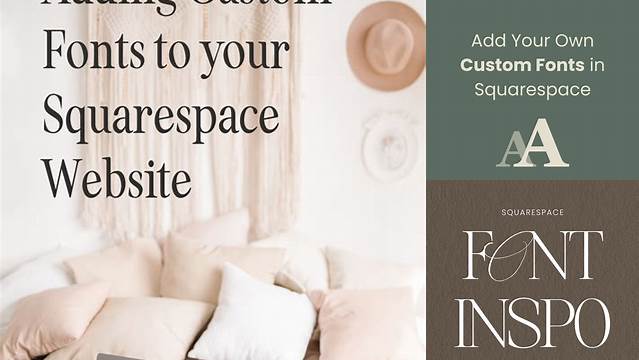
Custom Fonts On Squarespace: A Comprehensive Guide
Unleash Your Brand's Personality: A Guide to Using Custom Fonts on Squarespace
Hey everyone! Ever looked at a website and thought, "Wow, that font really speaks to their brand"? Well, you're in the right place if you want to achieve the same effect on your Squarespace site! Today, we're diving deep into using custom fonts on Squarespace, making your website not just look good, but feel like a true extension of your brand's identity. Forget the generic web fonts; we're talking about injecting your unique style with custom typography. Think of it as the secret sauce that sets you apart from the crowd! This guide will walk you through everything you need to know, from the basics to some pro tips that’ll make your site a design masterpiece. Let's get started, shall we?
Why Bother with Custom Fonts? The Awesome Benefits
Okay, so you might be thinking, "Why all the fuss about custom fonts? Aren't the default fonts on Squarespace good enough?" And the answer, my friends, is a resounding no, at least if you're serious about building a strong brand. Using the default fonts is like wearing the same outfit as everyone else – you blend in! But with custom fonts, you get to stand out, to shout your unique brand personality from the digital rooftops. Let me break down the amazing benefits of this game-changing feature.
First and foremost, custom fonts allow for brand consistency. Imagine your logo, your social media graphics, and your website all using the same font. It creates a cohesive look and feel that instantly communicates your brand's values and personality. Consistency builds trust and recognition, making your brand instantly recognizable. It's like having a signature style that everyone knows and loves. Think of iconic brands – their fonts are just as recognizable as their logos. This consistency also ensures that the visual language of your brand remains solid, regardless of where your audience encounters it.
Next up, custom fonts elevate your website's design aesthetics. Let's face it, the default fonts can feel a little… well, bland. But with the perfect custom font, you can create a more visually appealing and engaging website that captures your audience's attention. A unique font can transform the overall look and feel of your website, creating a more memorable and enjoyable user experience. A well-chosen font will add personality and convey your brand's unique story, elevating your website's design from basic to brilliant.
Furthermore, custom fonts can enhance your brand's personality. Fonts have personalities, believe it or not. A playful font might suit a children's brand, while a sleek, modern font might be perfect for a tech company. The font you choose tells a story about your brand. Does it feel serious, fun, innovative, or traditional? Your font choice communicates these subtle messages. It's about expressing your brand's soul through typography. It’s about finding that font that just feels right and perfectly aligns with your target audience.
Finally, custom fonts can improve readability and user experience. Some fonts are simply easier on the eyes than others. Choosing a font that's both stylish and legible ensures that your content is easily readable. A great font choice enhances the user experience, making your website more accessible and enjoyable to navigate. Ultimately, it can lead to increased engagement and a higher chance of converting visitors into customers. Clear typography is vital for maintaining the interest of the user and ensuring they read the content you want them to engage with.
So, are you convinced yet? If not, get ready to be! Custom fonts are a powerful tool that can transform your Squarespace site into a true reflection of your brand.
1. Choose Your Fonts:
Before anything else, you need to pick out your fonts! There are tons of places to find beautiful, unique fonts, both free and paid. Google Fonts is a fantastic resource, offering a massive library of free fonts that are easy to implement. Sites like Adobe Fonts (formerly Typekit) offer a wider range of premium fonts, but they usually come with a subscription fee. Consider your brand's personality and the overall feel you want to create when selecting your fonts. Make sure the fonts you choose are web-safe, meaning they're designed to display correctly on websites. Make sure they are licensed for web use! Always double-check the font's license to ensure you're allowed to use it on your website.
2. Obtain the Font Files:
Once you've selected your fonts, you'll need to download the font files. You'll typically need the .woff
and .woff2
file formats. These formats are optimized for web use. If you download your fonts from a site like Google Fonts, they often provide these files directly. If not, you can use an online font converter to convert other font file types (like .ttf
) into .woff
and .woff2
formats. Having both formats ensures your fonts will display correctly on all modern browsers, creating a seamless experience for all users. These are key files to have for the next steps in the process.
3. Upload Your Fonts to Squarespace:
This is where things get a little technical, but don't worry, I'll break it down. Unfortunately, Squarespace doesn't have a direct upload option for custom fonts in its standard settings. Therefore, we have to use custom CSS. Here’s how:
Final Thoughts: Embrace the Power of Typography
Alright, guys, we've reached the end of our journey! By now, you should be well-equipped to start using custom fonts on your Squarespace site and transform your website into a true reflection of your brand. Remember, typography is about more than just choosing pretty letters. It's about conveying your brand's personality, creating a unique user experience, and making a lasting impression on your audience. So, go forth, experiment, and have fun! Your website is your digital canvas, and custom fonts are the vibrant colors you use to paint your brand's story. Don't be afraid to take risks, try new things, and find the perfect font combination that truly speaks to your brand. Keep experimenting, keep learning, and most importantly, keep creating! Good luck, and happy designing!